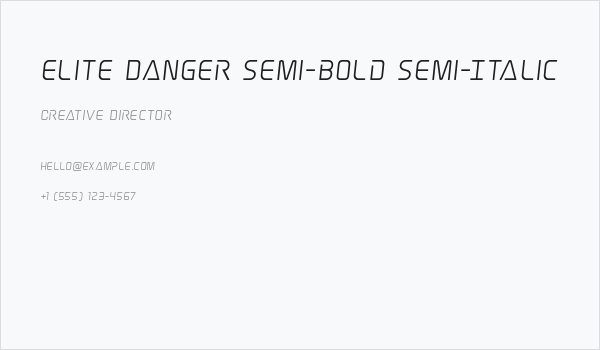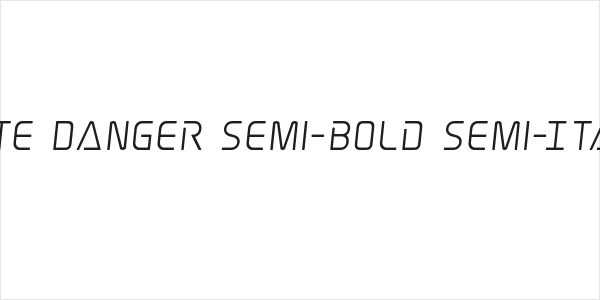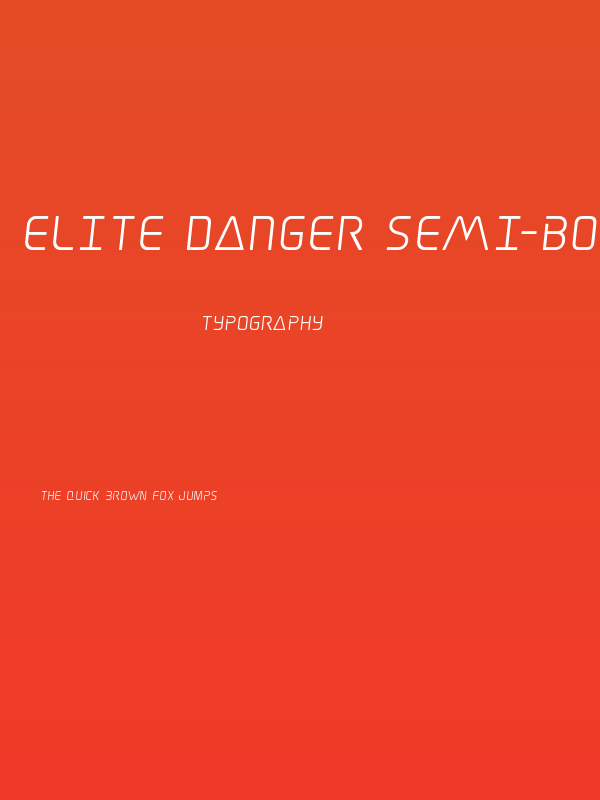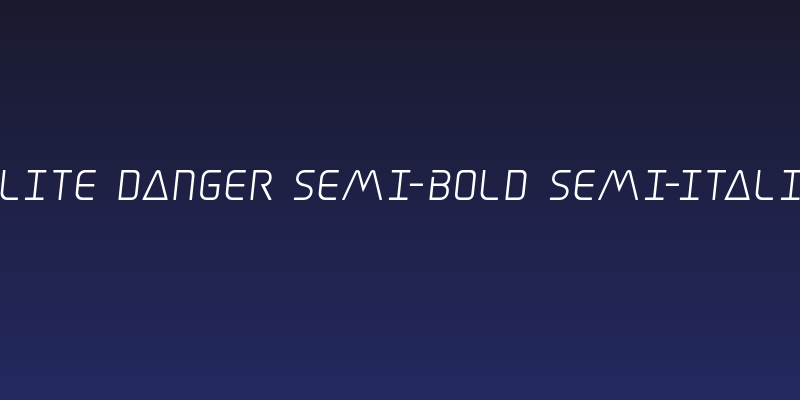
Elite Danger Semi-Bold Semi-Italic Font
Elite Danger Semi-Bold Semi-Italic Description
This font features a sleek, modern design with a semi-bold weight and semi-italic style. The characters are slightly slanted, giving a dynamic and forward-moving appearance. The strokes are consistent in thickness, providing a uniform look across all characters. The font maintains a geometric structure with rounded edges, which adds a touch of softness to its overall sharp and futuristic aesthetic. The spacing between characters is normal, ensuring readability while maintaining its unique style. This font is versatile, suitable for both digital and print media, and can be used to convey a sense of innovation and modernity.
| Use Case | Headlines, Logos, Digital Interfaces |
| Proposed Projects | Ideal for tech branding, futuristic designs, digital interfaces, and modern advertising campaigns. |